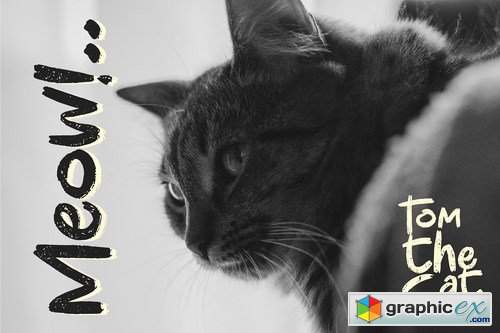
KIBO SQUAD - Display Comic Font
"KIBO SQUAD - Display Comic" Font will look gorgeous on all your designs, invitation, poster design, book design, branding materials, logo's, t-shirt and all project design other.